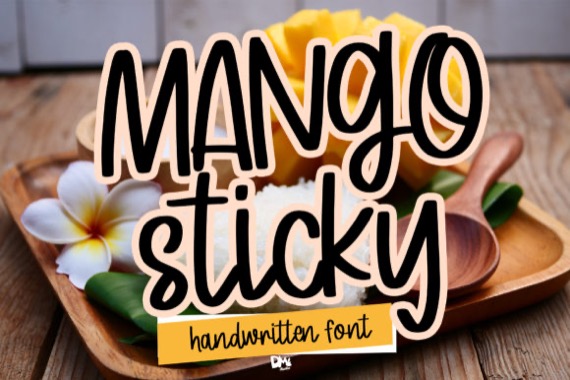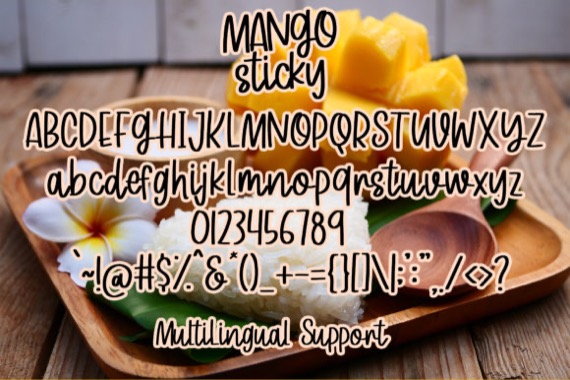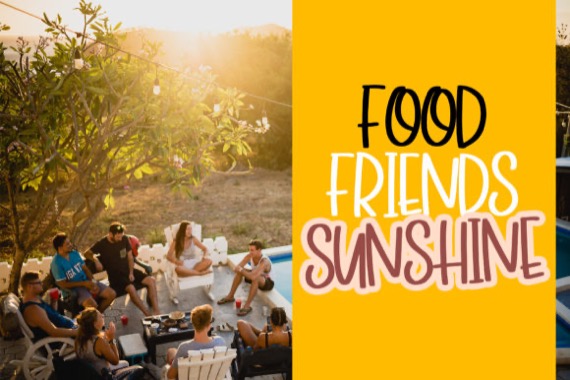
Mango Sticky is a sweet handwritten font that was created and released by Dmletter31 with an authentic vibe. It will turn any creative idea into a true standout.
Mango Sticky Handwritten Font